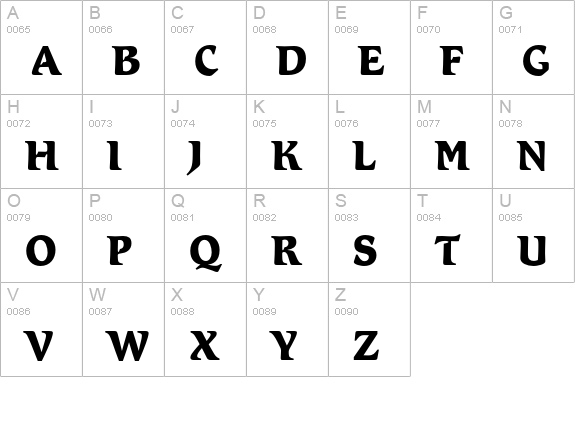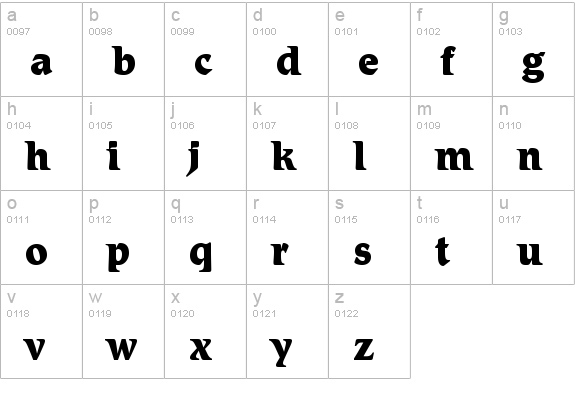
AT Romic Extra Bold is a strong, high-contrast variant in the AT typeface family \xE2\x80\x94 well suited to headlines, attention-grabbing titles, and strong calls-to-action.
AT Romic Extra Bold is a striking and powerful typeface designed for making a bold statement in your projects. This font exudes confidence and commands attention with its strong and impactful letterforms. The thick strokes and sharp angles of AT Romic Extra Bold make it perfect for headlines, titles, and other prominent text elements. Its bold and assertive appearance is sure to make a lasting impression on viewers. Best of all, AT Romic Extra Bold is available for free download at FontsMarket.com. This means you can easily access this eye-catching font and use it in your designs without any cost. Whether you're working on a poster, logo, website, or any other creative project, AT Romic Extra Bold will help you stand out and make a bold statement. Download this dynamic font today and take your designs to the next level.